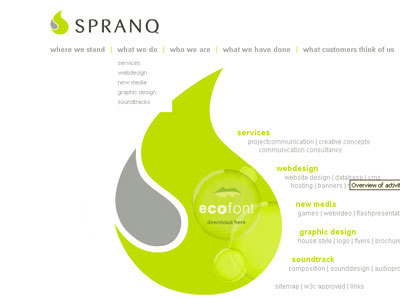
A Dutch company is looking for ways to minimize environmental protection costs in printing by developing a new font, which can reduce the amount of ink needed by 15%. Technically, this "Ecofont" environmental protection font will have small holes in the strokes of the characters.
Source: The Register . Spranq, the media and marketing company in the Utrecht (Netherlands), designed this ink-saving font, came up with a painless font design solution like Swiss butter after failing with Experiment using a sliver font or a broken font - like stripes on a zebra pattern. Gerjon Zomer, co-founder of Spranq, said: " We found out that it is necessary to preserve the size and outline of the characters so that they can be read easily ." Mr. Zomer admits this font is not nice, but claims it can be used for personal writing or for internal use in a company. Spranq currently provides this font for free on the company's website. Zomer said its website has skyrocketed traffic since last week, when the Ecofont keyword began to spread. In particular, the majority of international access activities are from the US.
Zomer said he was satisfied in a certain way, because " when you put something on the Internet, you can't know what you're expecting ." Spranq is inviting developers to continue adding Ecofont fonts to the free and open source model, and Zomer says Arabic and Jewish font versions are also being developed.
What is Ecofont: Save Ink by ... Punching the Font?
A Dutch company is looking for ways to minimize environmental protection costs in printing by developing a new font, which can reduce the amount of ink needed by 15%.
Why is Ecofont: Save Ink by ... Punching the Font important?